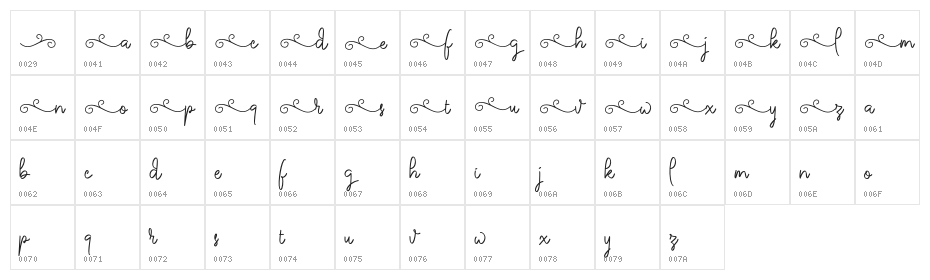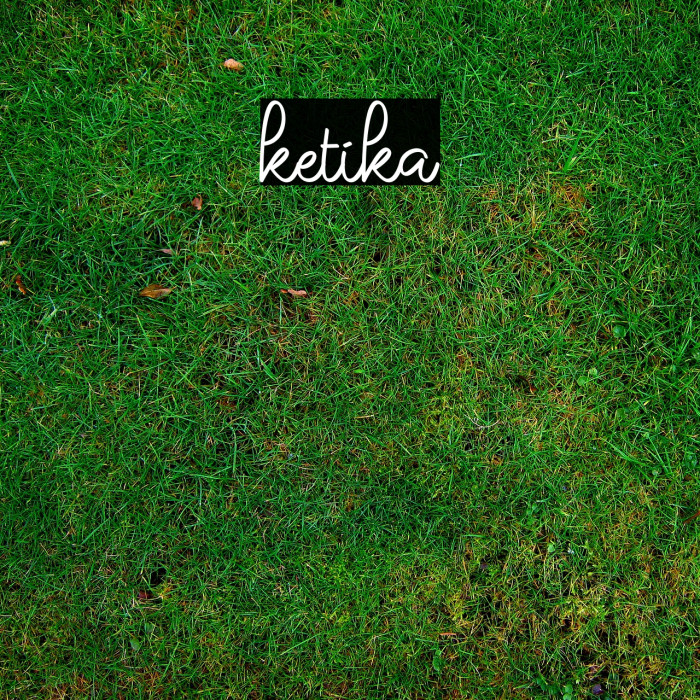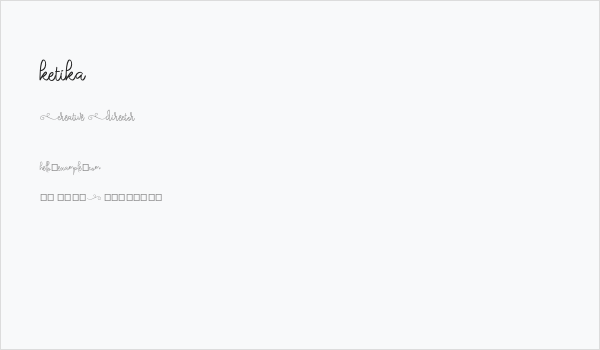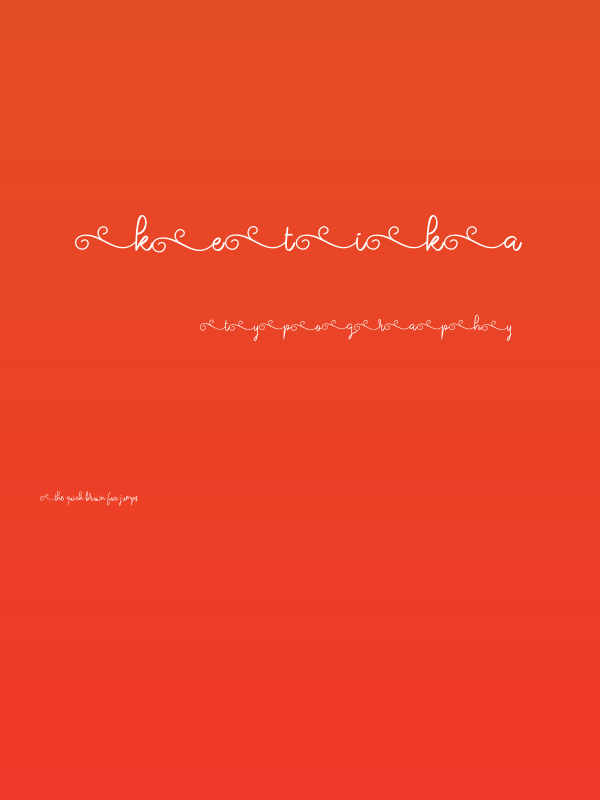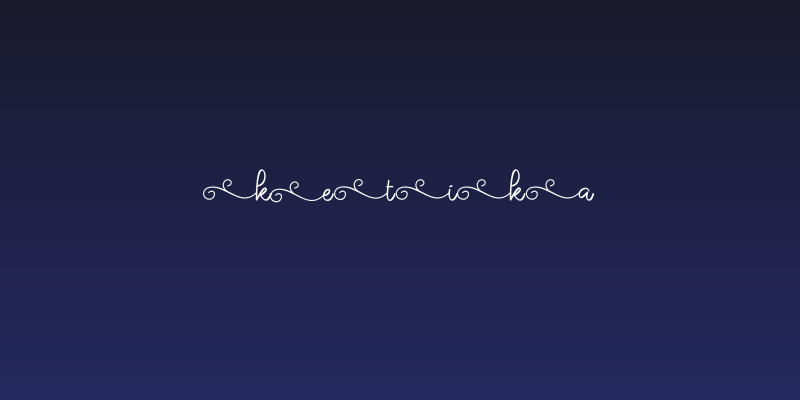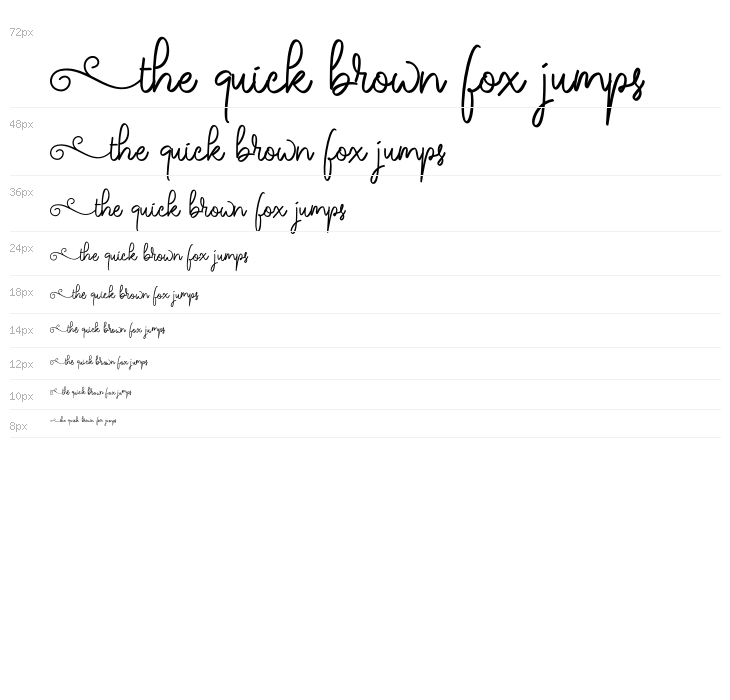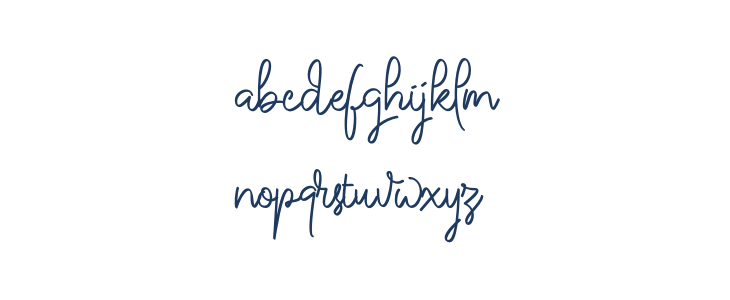
ketika Font
ketika Description
This font features a whimsical and elegant script style, characterized by its flowing, interconnected letters and decorative swashes. The uppercase letters are adorned with intricate flourishes, adding a touch of sophistication and charm. The lowercase letters maintain a consistent flow, enhancing readability while preserving the artistic flair. The font's playful yet refined appearance makes it suitable for creative projects that require a personal touch. Its unique style is ideal for invitations, greeting cards, and branding materials that aim to convey elegance and creativity.
| Proposed Projects | Ideal for wedding invitations, greeting cards, branding, and decorative projects. |